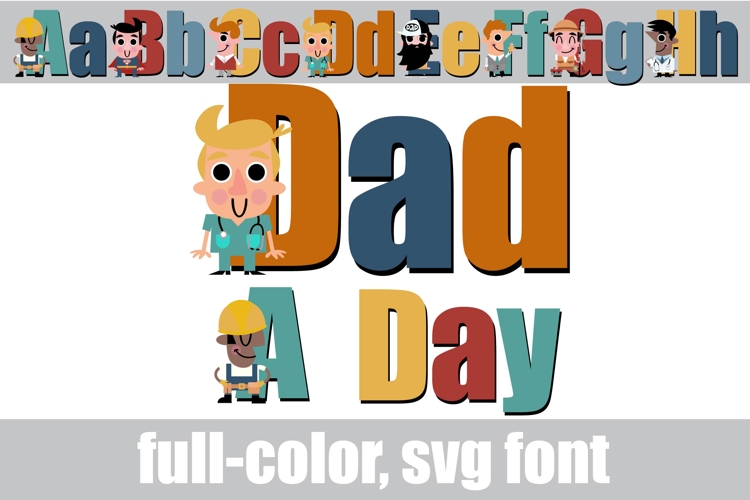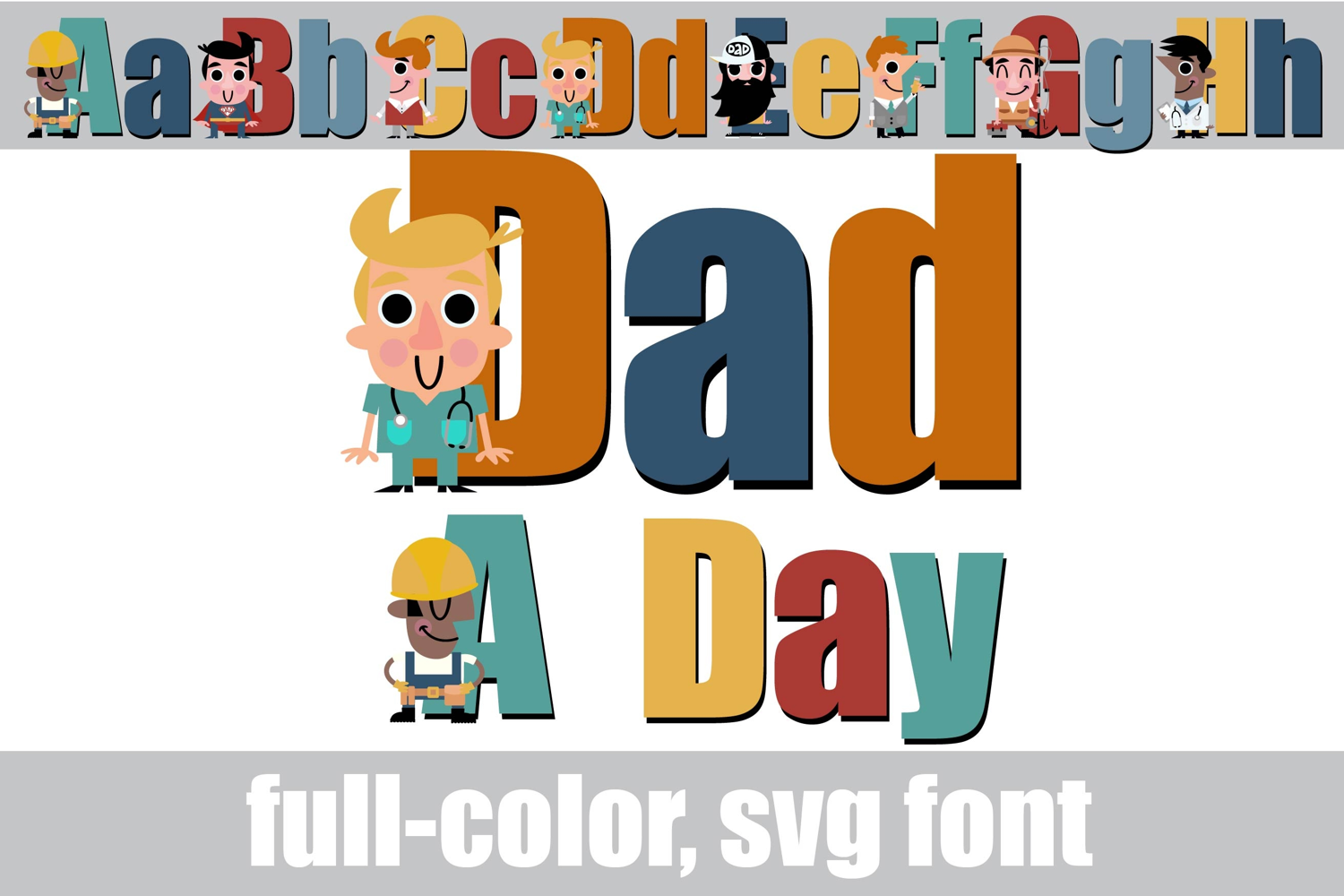
Dad a Day Too Color Font
This full-color, sans serif font features men in their work attire. There is an alt case of additional colors of each letter that you can access through your system's character map.